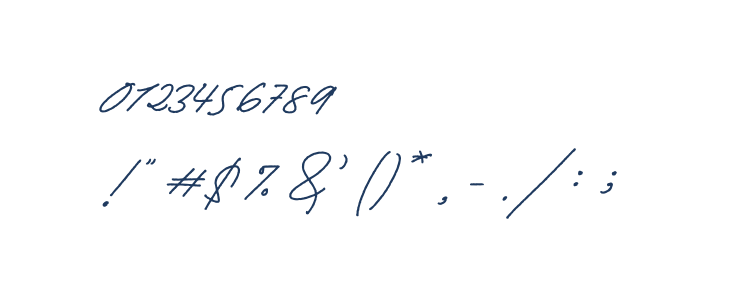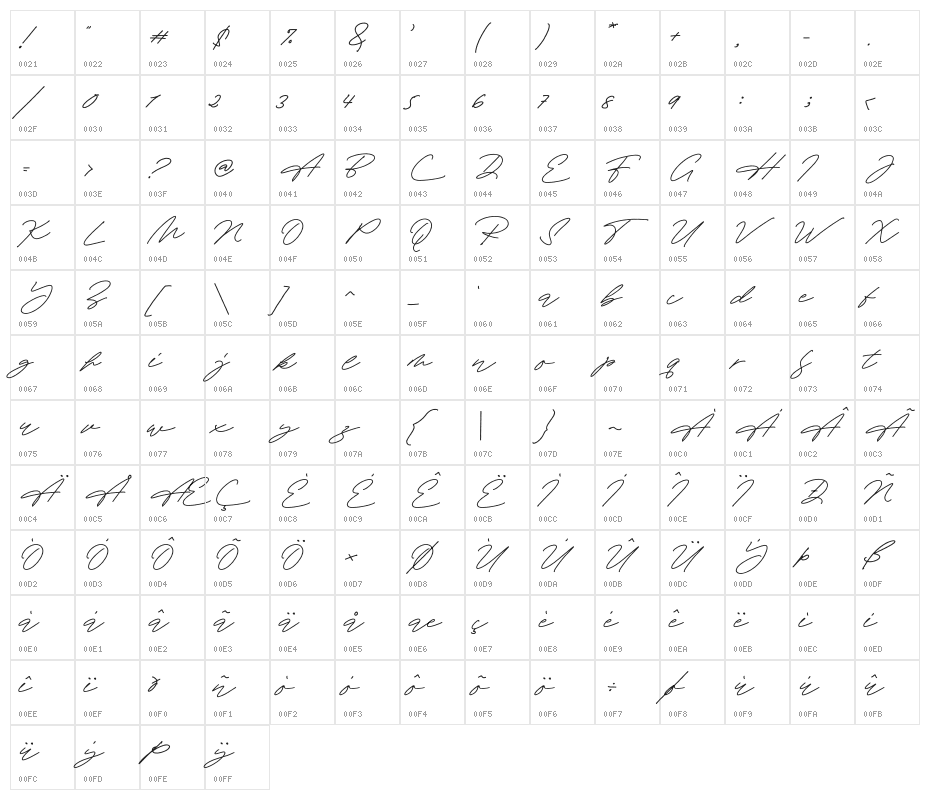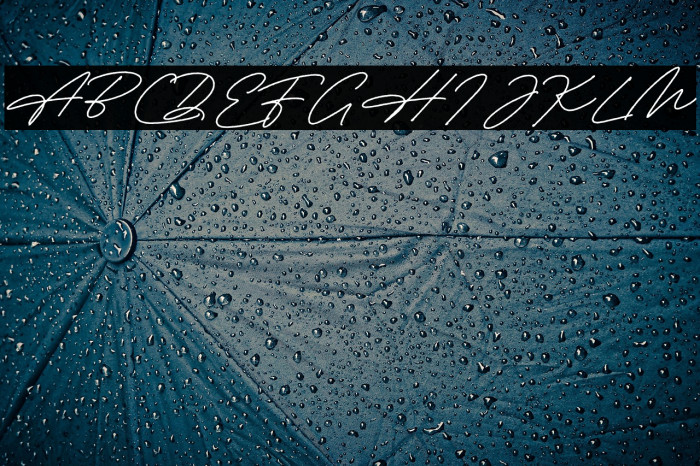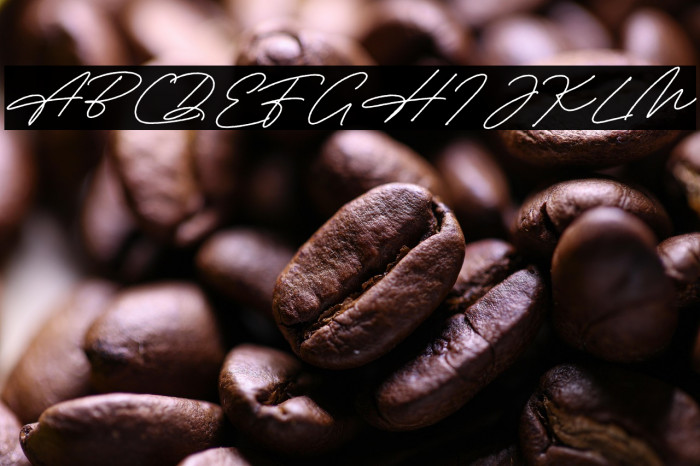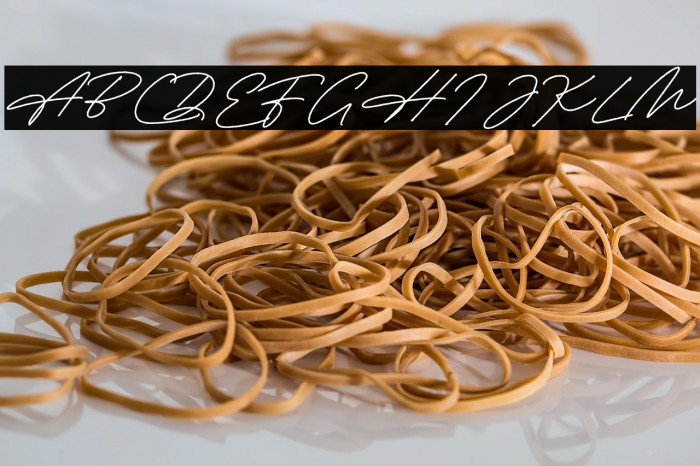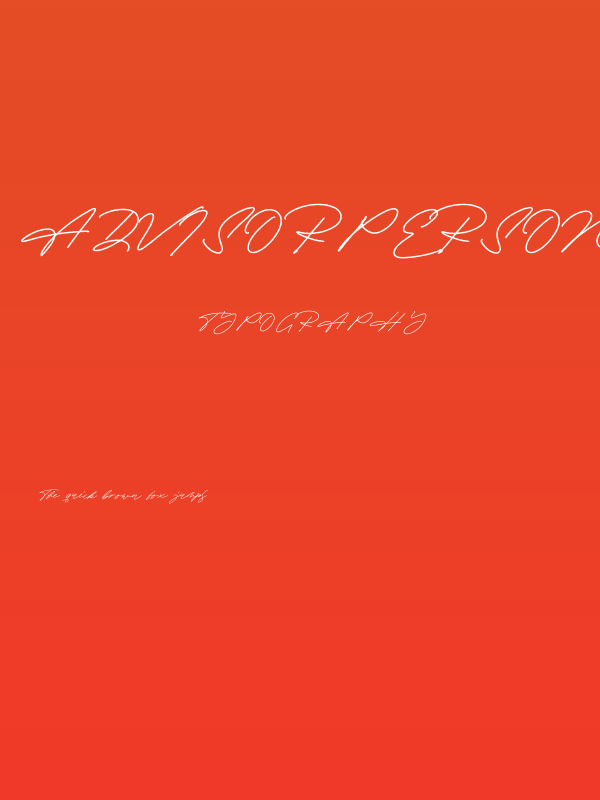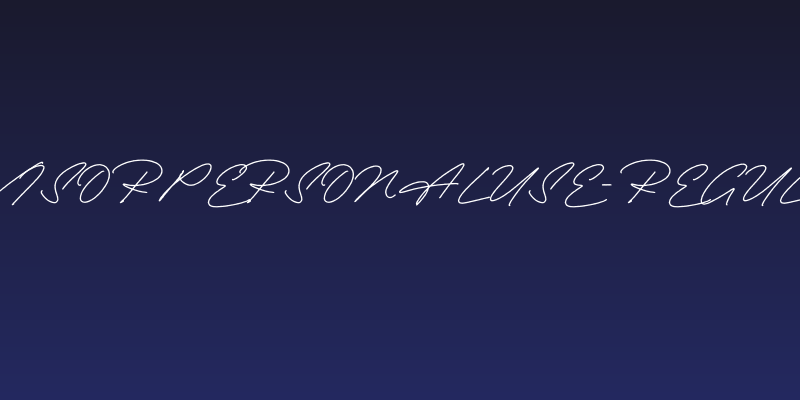
AdvisorPersonalUse-Regular Font
AdvisorPersonalUse-Regular Description
This elegant script font features fluid, cursive strokes that emulate the natural flow of handwriting. Each letter is intricately connected, creating a seamless and sophisticated appearance. The uppercase letters are slightly larger and more ornate, while the lowercase letters maintain a consistent, flowing style. Numbers and special characters are designed to match the overall aesthetic, ensuring a cohesive look across all text. The font's delicate lines and graceful curves make it ideal for projects that require a personal touch or a sense of elegance.